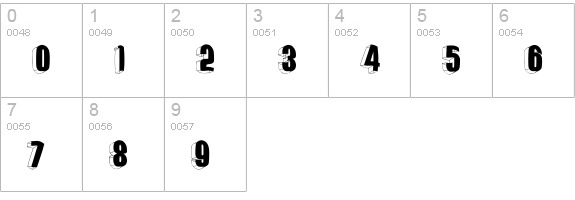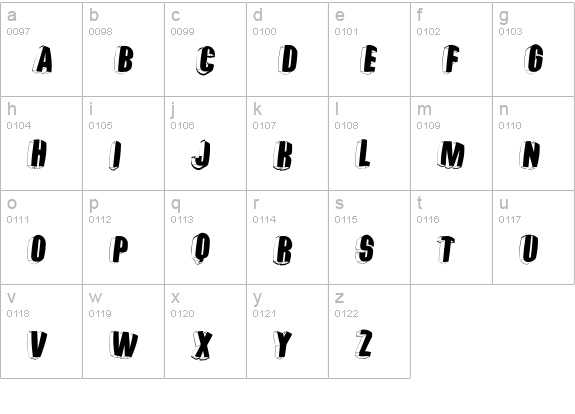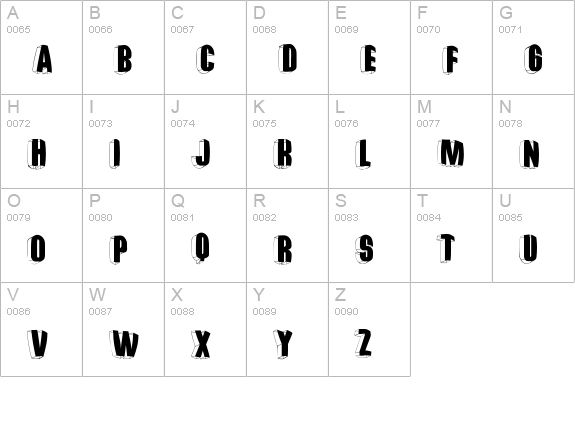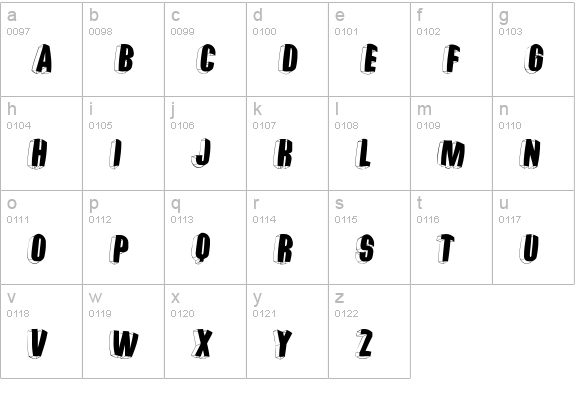
ThreeDimRightwardsRound Font Details
ThreeDimRightwardsRound font is a visually captivating typeface that adds a unique and dynamic touch to any design project. With its three-dimensional, rounded letterforms, this font exudes a sense of depth and modernity. The soft curves and rounded edges of ThreeDimRightwardsRound font create a friendly and approachable aesthetic, making it ideal for a wide range of applications. Whether you're designing a logo, creating a website, or designing a poster, this font will effortlessly enhance your visual communication. The versatility of ThreeDimRightwardsRound font is further highlighted by its availability in a range of weights and styles, allowing you to choose the perfect option to suit your project's needs. From light and airy to bold and impactful, this font offers endless possibilities for creative expression. One of the most enticing aspects of ThreeDimRightwardsRound font is that it is completely free to download. You can easily access this font at FontsMarket.com, where it is readily available for immediate use. This means that you can start incorporating ThreeDimRightwardsRound font into your designs without any financial constraints. So why wait? Take advantage of the captivating and freely available ThreeDimRightwardsRound font today and elevate your design projects to new heights.